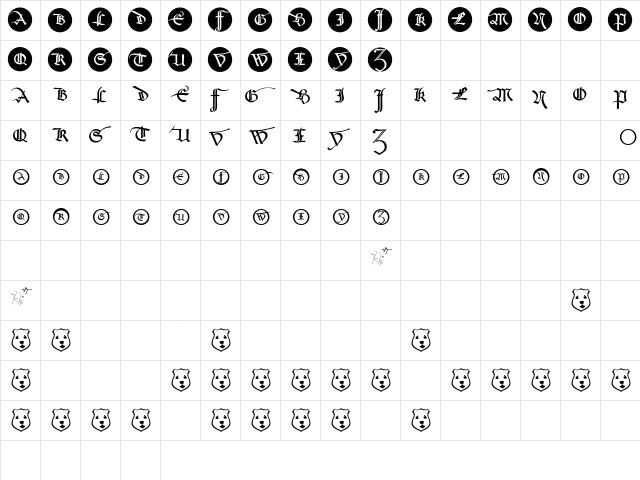
SchneidlerSchwabachInitials Regular Free Font
SchneidlerSchwabachInitials Regular
Design Context for SchneidlerSchwabachInitials
SchneidlerSchwabachInitials is a composed and adaptable typeface that performs quietly and consistently across a wide range of design contexts.